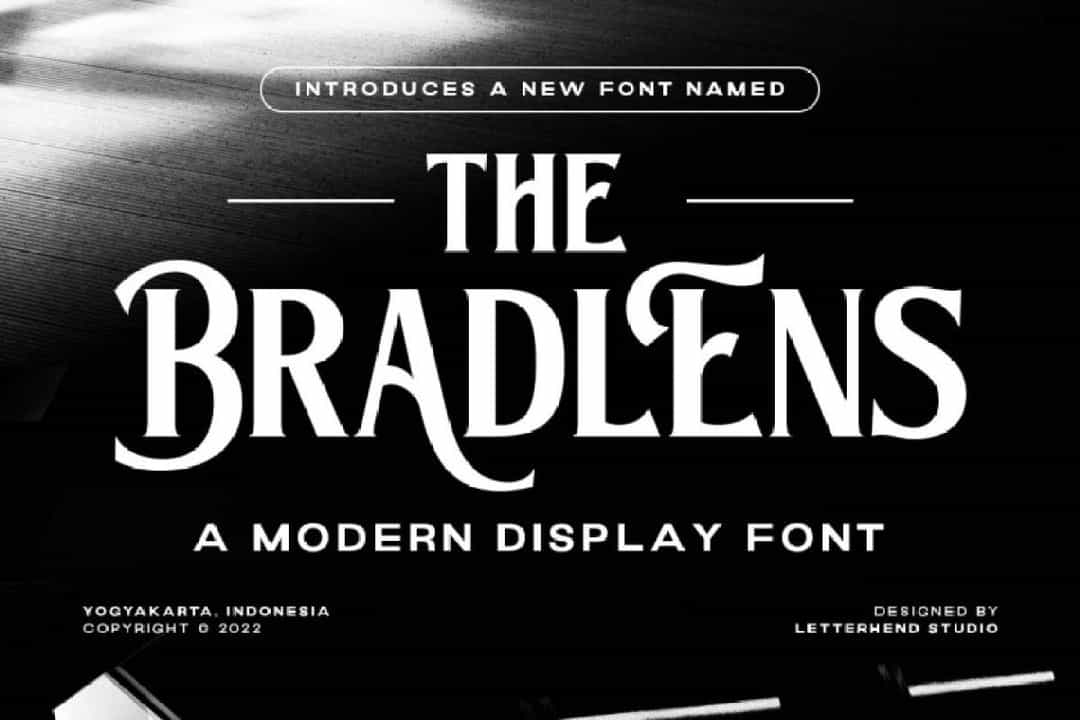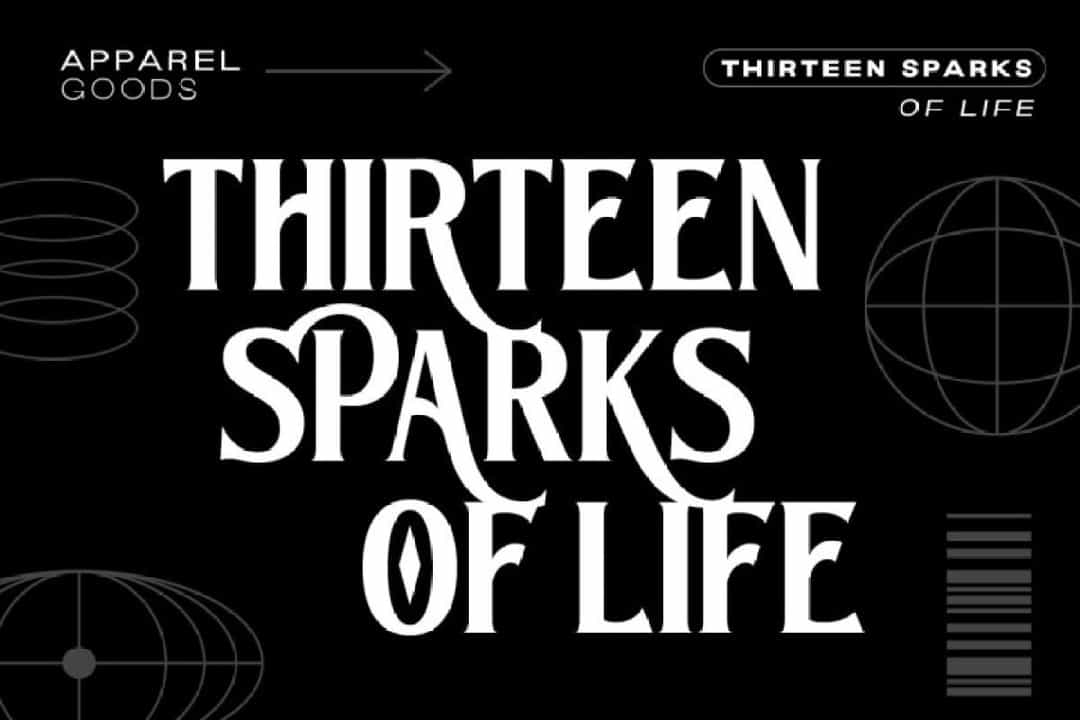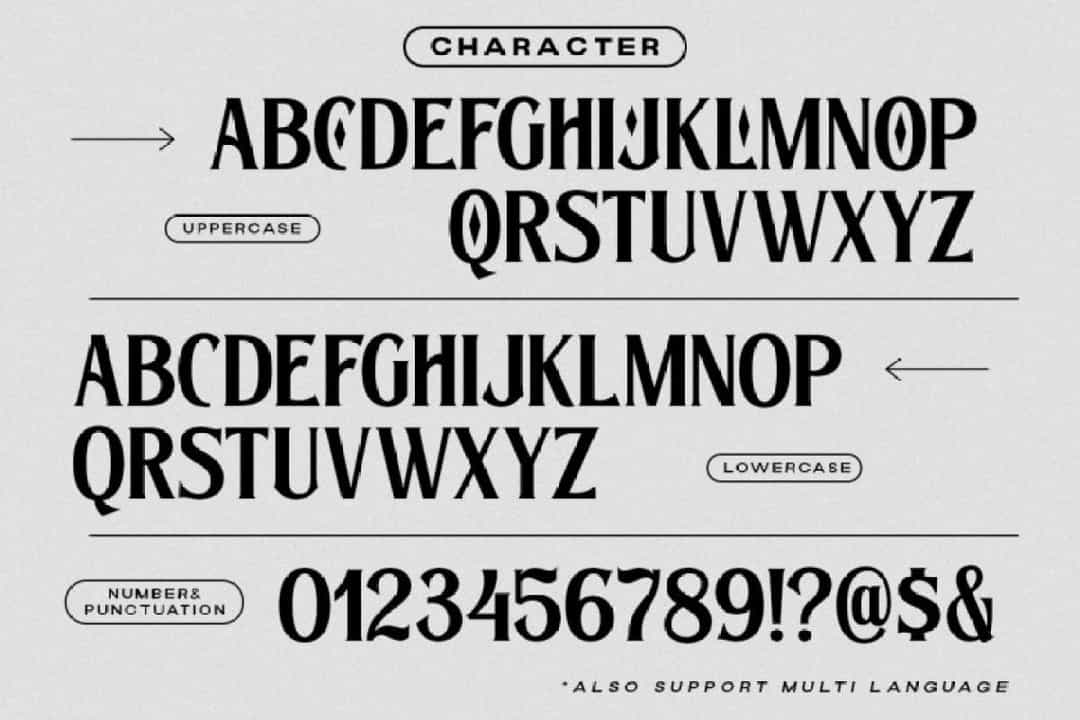
The Bradlens is an eye-catching contemporary display font designed with care to offer superior quality and luxury feel. Perfect for logos and headlines in both vintage or contemporary designs. Great for logos and headlines in invitations labels and logos designs as well as formal invitations cards wedding cards packaging fashion makeup stationery books labels or any kind of purpose for advertising purposes.